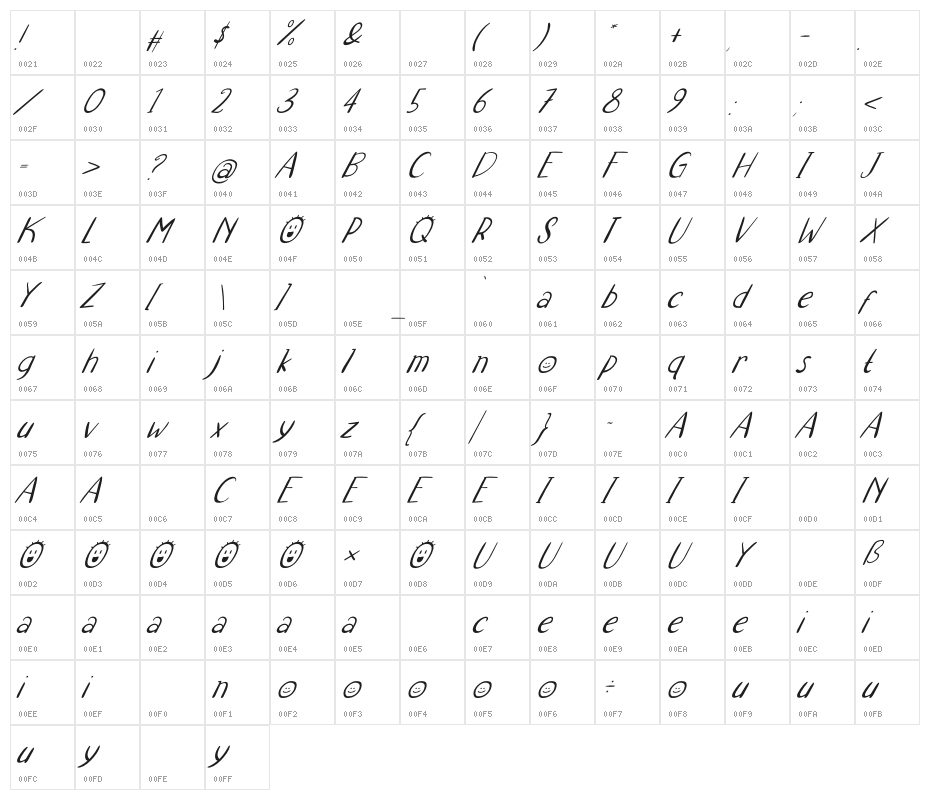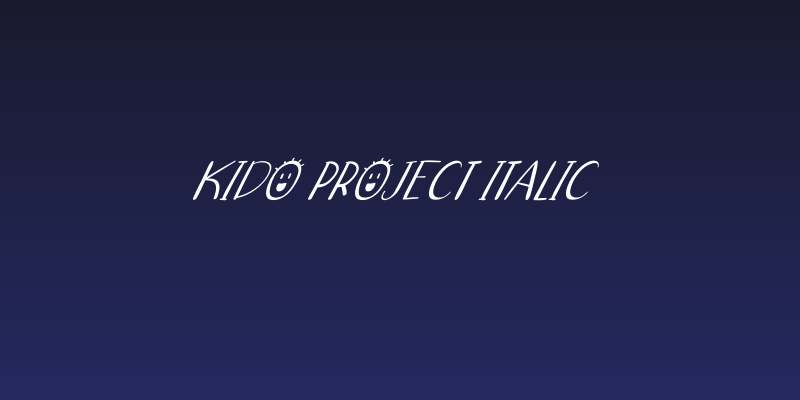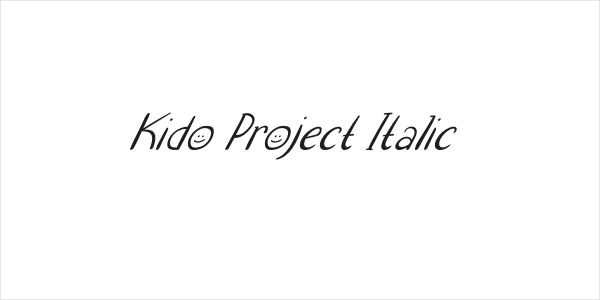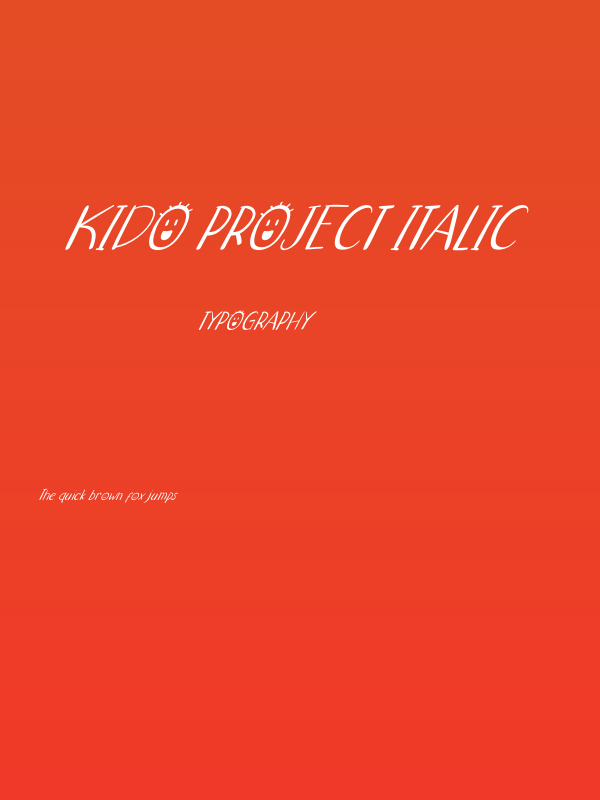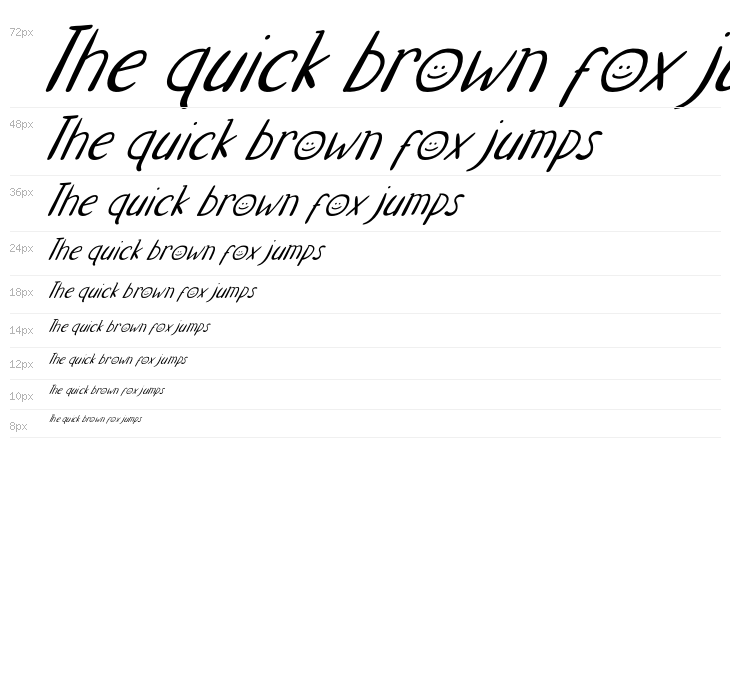
Kido Project Italic Font
Kido Project Italic Description
This playful and dynamic font features a handwritten style with a distinct italic slant, giving it a lively and energetic appearance. The characters are fluid and slightly elongated, with a consistent stroke width that maintains readability while adding a touch of whimsy. Unique elements, such as the smiley face incorporated into certain letters, enhance its playful nature. The font's design is both informal and approachable, making it suitable for creative and casual applications. The numerals and special characters maintain the same lively style, ensuring a cohesive look across all text elements.
| Use Case | Logos, Headlines, Informal Text |
| Proposed Projects | Ideal for children's books, playful branding, greeting cards, and creative social media graphics. |